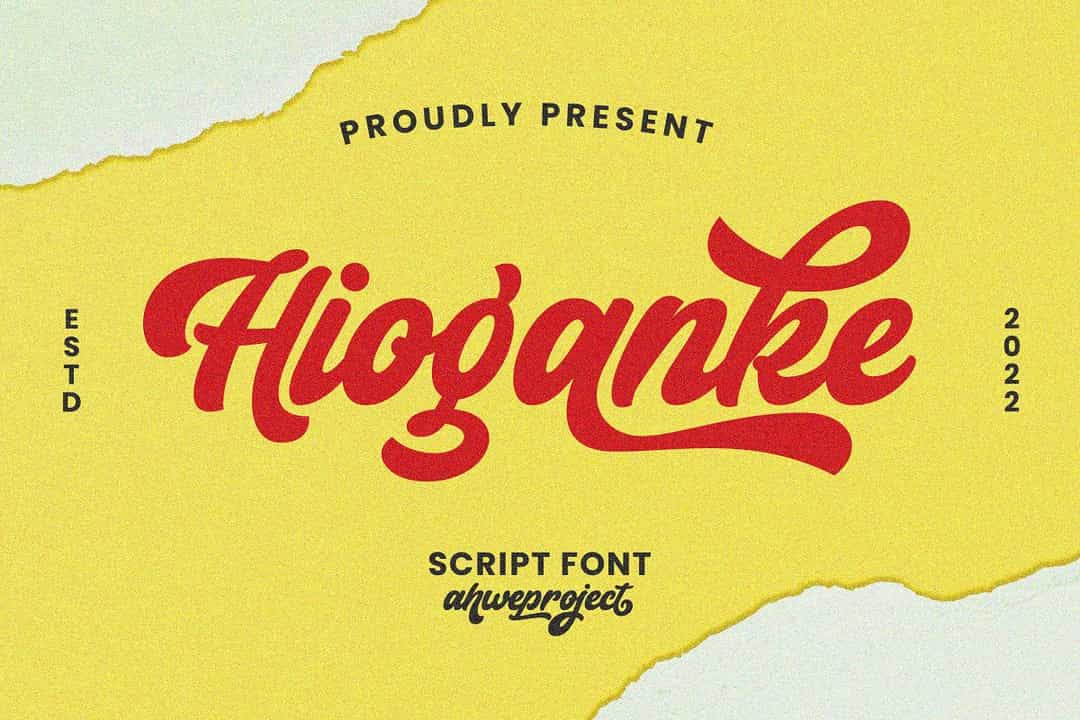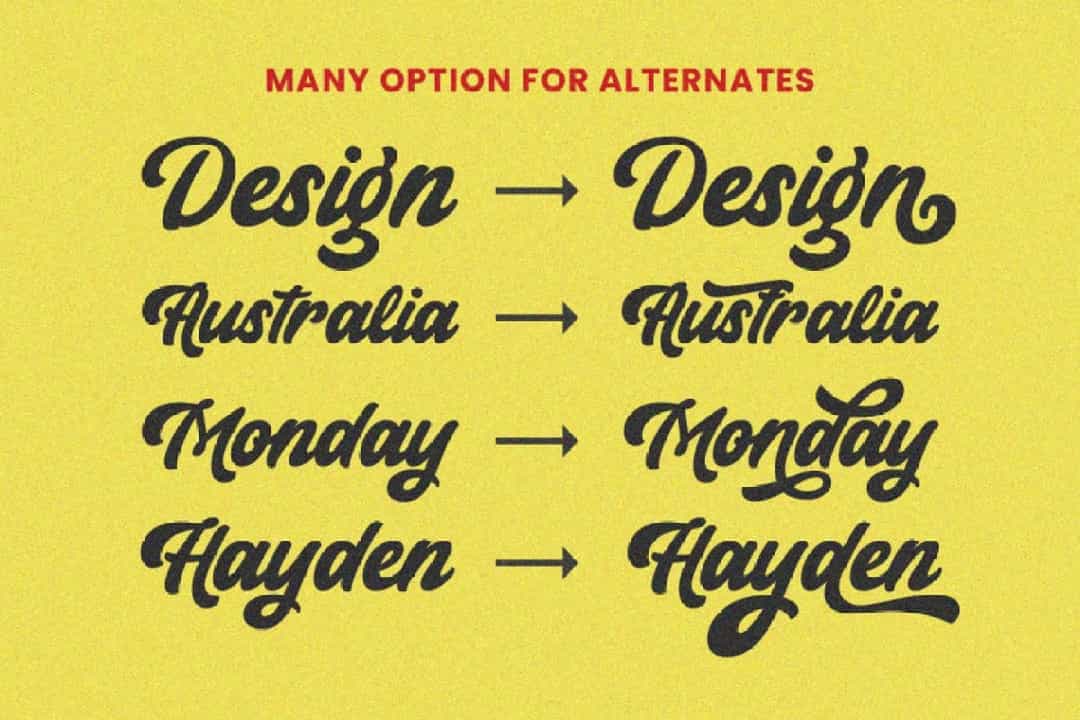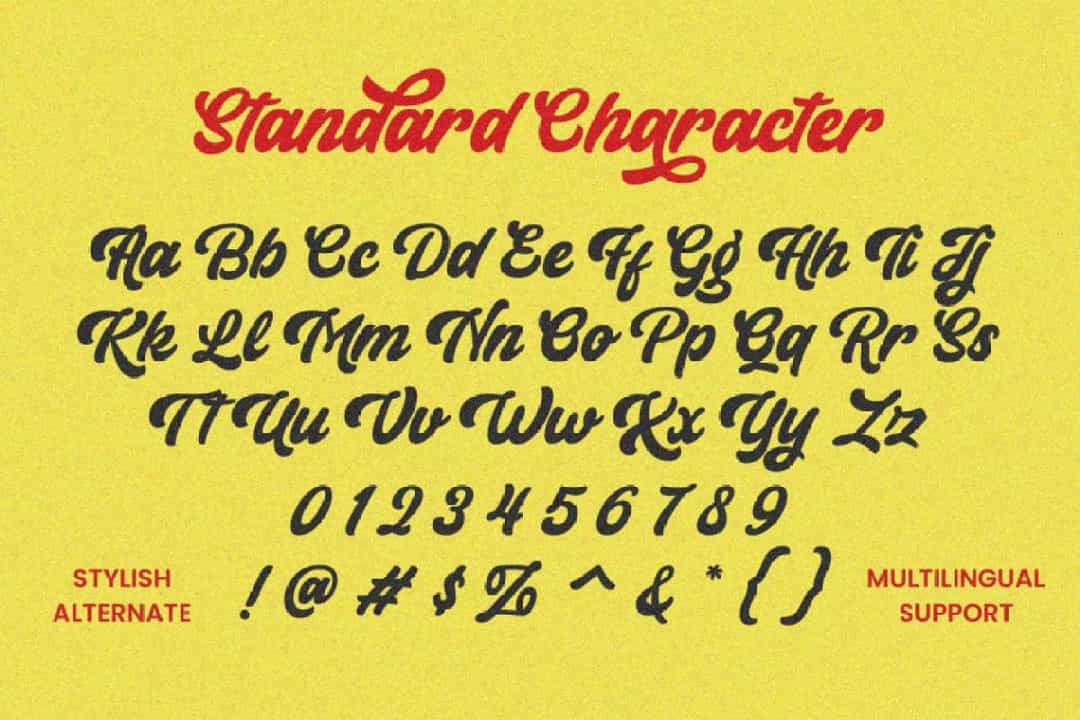
Hioganke can be described as an urban script calligraphy font. This font was developed so you could design logotypes in urban style to represent your brand or clients and promote them effectively. Use it for everything graphic from badges and signs, Esport, headlines and urban design posters through to T-shirt/apparel Posters quickly! Since Hioganke is PUA encoded you have access to its incredible characters and ligatures instantly!